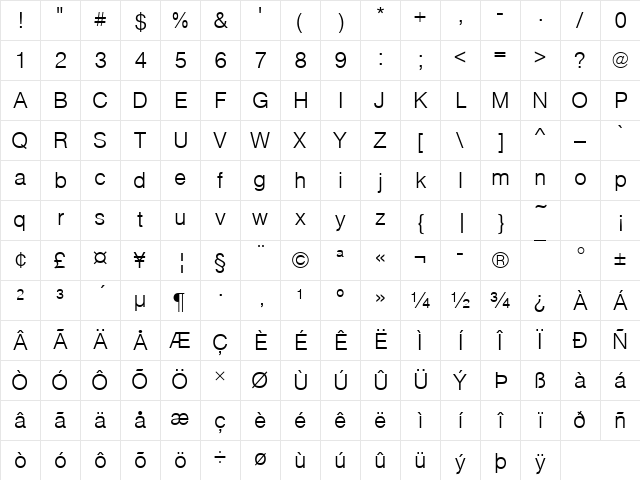
Complete Nimbus Sans Becker TLig Regular glyph index. Displaying only characters natively supported by Nimbus Sans Becker TLig Regular font.
Nimbus Sans Becker TLig is a composed and adaptable typeface that performs quietly and consistently across a wide range of design contexts.